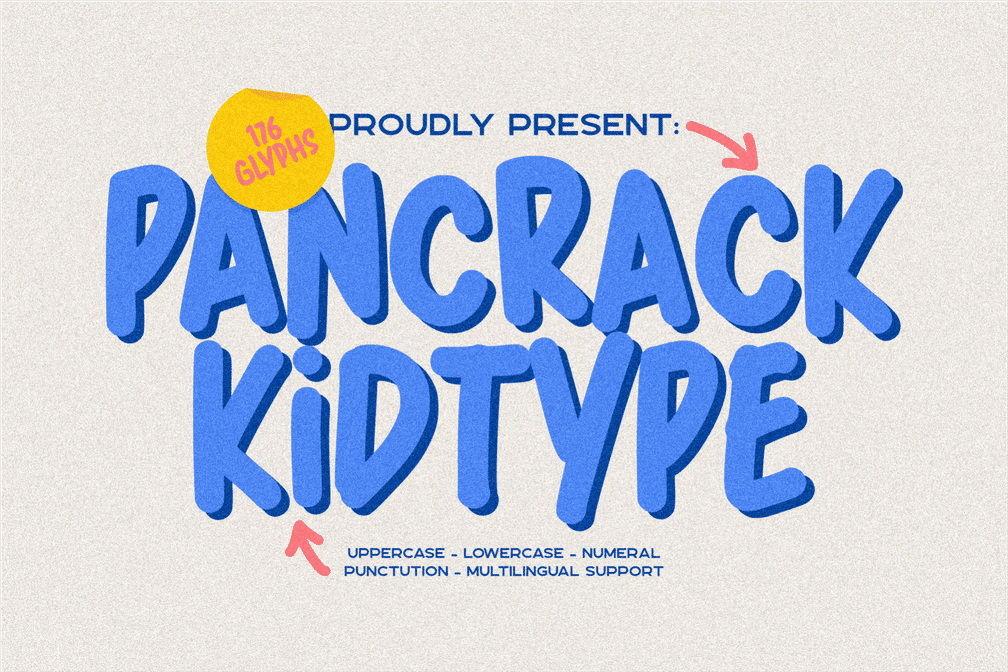
Pancrack Handwritten Playful
Pancrack inspired by unique kid’s writing and often found for branding food places or restaurants and cafes or coffee shops, has a youthful vibe and is full of joy. Suitable for logo design, business branding, social media kits, and others.